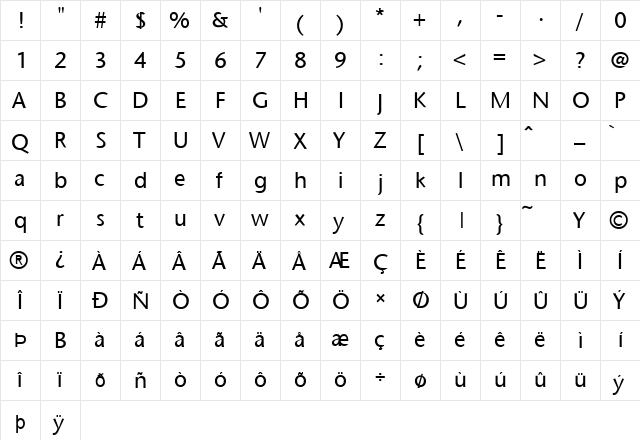
FZ BASIC 25 Normal
Design Context for FZ BASIC 25 Typeface
FZ BASIC 25 takes a measured approach to typography — its balanced proportions and neutral character make it a reliable workhorse for both digital and print work.